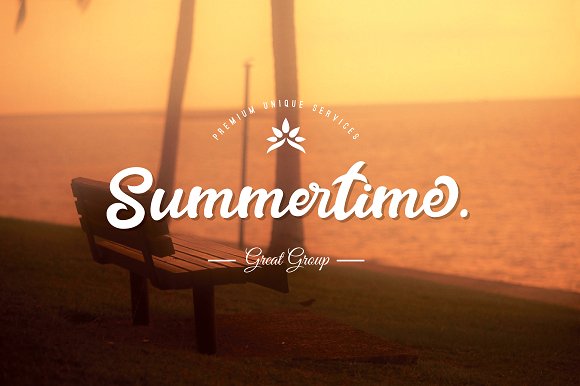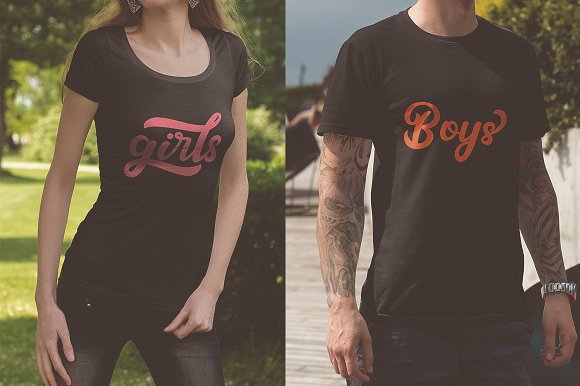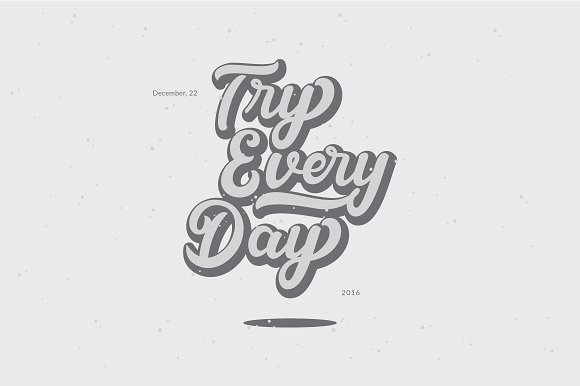
Introduction to Metal Ink Font
Do you remember that moment when you finally found the perfect font to elevate your creative project? For many designers, it’s a moment of pure joy, and it can make all the difference between a good design and a great one. I still recall the excitement I felt when I stumbled upon the Metal Ink Font – a clean handwritten font that has since become my go-to choice for creating stunning lettering designs.
The Metal Ink Font is a versatile design resource that offers a high-quality, free download option, making it an attractive choice for designers on a budget. Its transparent background allows for seamless integration into any design project, from social media graphics to wedding invitations. With its unique, handwritten feel, the Metal Ink Font is a valuable asset for any designer looking to add a personal touch to their work.
- High-quality vector design, perfect for creative projects that require a unique touch.
- Unique and stylish design elements, such as metallic textures and ink effects, add a premium touch to any creative project.
Honest Review: Metal Ink Font
As a designer, I’m always on the lookout for high-quality fonts to elevate my creative projects. Recently, I came across the Metal Ink Font, and I was excited to give it a try.
What works well: ✨ The Metal Ink Font has a unique, industrial feel that’s perfect for designs that require a touch of edginess. It’s also available for free download, which is a huge plus. The font is highly customizable, making it easy to adjust the size, color, and style to fit your design needs.
- High-quality design: The Metal Ink Font is well-designed and looks great in print and digital formats.
Limitations: ⚠️ While the Metal Ink Font is a great resource, it’s not suitable for all types of designs. It’s best used for bold, industrial-style projects, and may not be the best choice for more delicate or elegant designs.
Overall impression: I’m impressed with the Metal Ink Font and would definitely recommend it to designers who are looking for a high-quality, industrial-style font. It’s a great addition to any design resource collection.
Metal Ink Font is a high-quality design resource perfect for creative projects. With a transparent background, this font is ideal for adding a touch of industrial chic to your designs. You can download it for free, making it a great addition to your design toolkit.
For the best results, use Metal Ink Font on a dark background to showcase its metallic aesthetic. You can also experiment with different font sizes and styles to create a unique look.
Common Use Cases for Metal Ink Font
Metal Ink Font is perfect for:
- Industrial-themed designs
- Science fiction projects
- Techno-inspired artwork